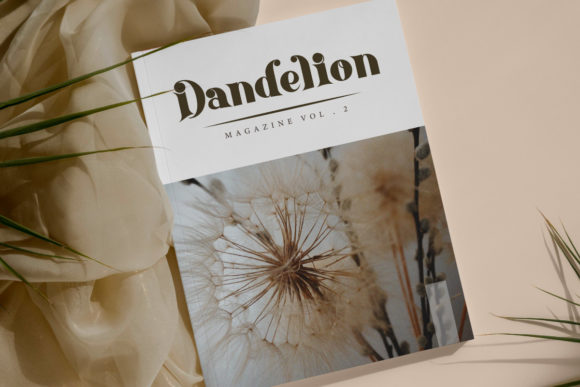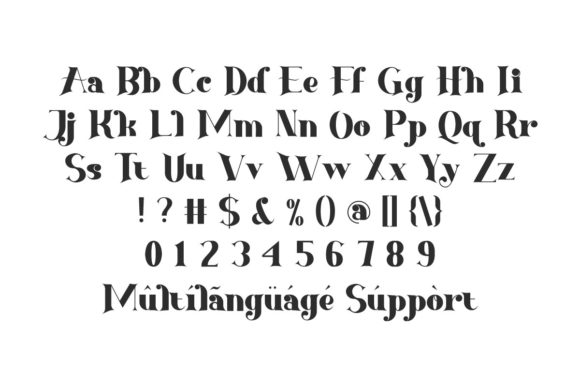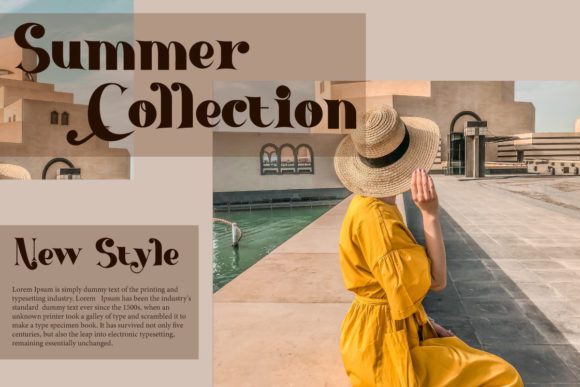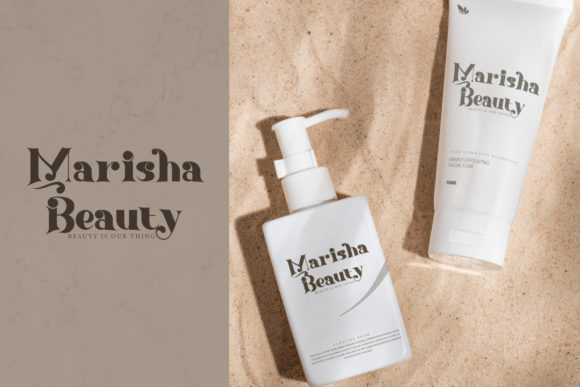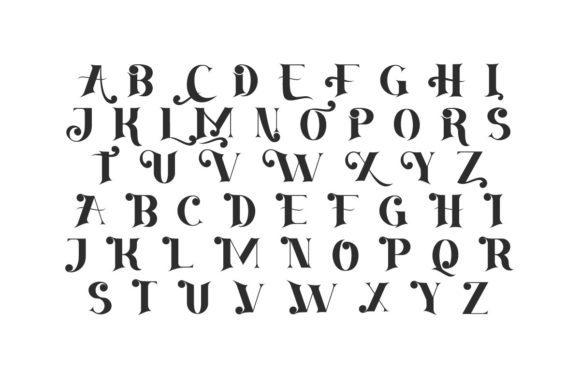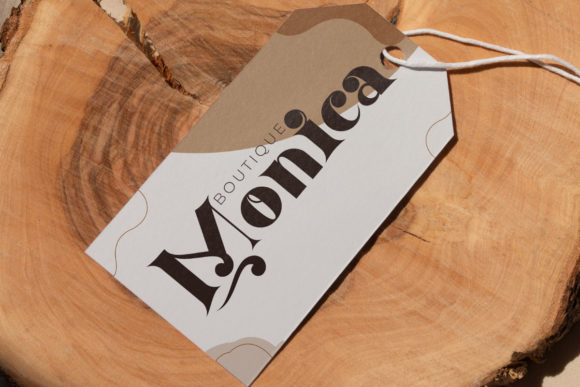
Introduction to History Begin Font
As a designer, you know the thrill of bringing a creative project to life. It’s that moment when all the pieces come together – the perfect blend of color, texture, and typography. But, let’s face it, finding the right font can make all the difference. That’s where History Begin Font comes in – a stylish and distinct display font that’s about to become your new go-to design resource.
With its PUA encoded features, accessing all glyphs and swashes is a breeze. Imagine being able to add a touch of elegance to your design with just a few clicks. Whether you’re working on a high-quality brochure, a free download for your portfolio, or a creative project that requires a unique touch, History Begin Font is the perfect solution.
Key Features of History Begin Font
- Unique Vintage Design: History Begin Font features a unique blend of vintage and antique elements, making it perfect for creative projects that require a touch of nostalgia.
- Large Character Set: History Begin Font includes a large character set, including uppercase and lowercase letters, numbers, and special characters, making it a versatile design resource.
- Design Resource for Creative Projects: History Begin Font is an excellent resource for designers, artists, and creatives working on projects that require a unique and vintage aesthetic.
Honest Review: History Begin Font
I recently stumbled upon the History Begin Font, and I must say it’s been a pleasant surprise. As a designer, I’m always on the lookout for high-quality design resources that can elevate my creative projects. The History Begin Font is definitely one of those.
- ✨ The font’s unique and vintage aesthetic is perfect for projects that require a touch of nostalgia. I’ve used it for a few client projects, and the results have been amazing.
- ⚠️ The font might not be suitable for projects that require a modern or sleek look. It’s best used for designs that require a more vintage or classic feel.
- ⚠️ The font’s character set might not be as extensive as some other fonts, so be sure to check the available characters before using it for your project.
Overall, I’m thoroughly impressed with the History Begin Font. It’s a fantastic addition to any designer’s design resource library, and I highly recommend it for any creative project that requires a touch of history and nostalgia.
History Begin Font is commonly used in a variety of creative projects, including graphic design, digital art, and web design. Its unique and elegant design makes it perfect for use in logos, branding, and other design elements where you want to add a touch of history and sophistication.